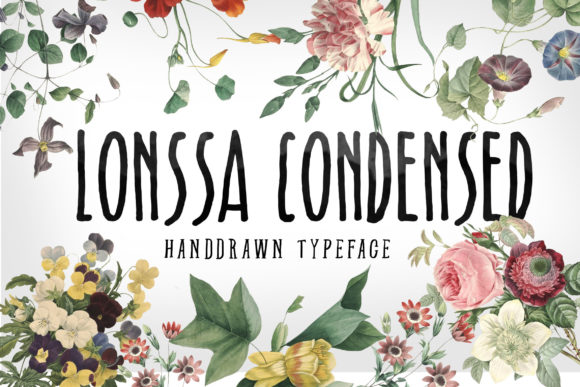
Lonssa Condensed for Modern Typography
Lonssa Condensed is a handwritten font that brings an authentic, personal touch to digital design. As a marketing specialist who regularly creates visuals for social media and brand campaigns, I've found that the right font can make or break audience engagement. This script font offers a unique blend of simplicity and charm, making it ideal for a wide range of creative projects.
The visual style of Lonssa Condensed is clean and approachable, with subtle imperfections that mimic real handwriting. It carries a warm, friendly mood that's perfect for content that aims to connect on a personal level. Whether you're designing a promotional graphic or a branded template, this font adds a human element that stands out in a sea of generic typefaces.
Creating Impactful Social Media Graphics
For Instagram posts, Pinterest pins, and YouTube thumbnails, the key is to grab attention quickly. Lonssa Condensed excels in this area due to its legibility and distinct character. When used for headlines or callouts, it helps draw the eye and encourages users to stop scrolling.
Consider using Lonssa Condensed for a sale announcement. Pair it with a clean sans serif font for the supporting text, and you'll have a visually balanced graphic that communicates your message clearly. The contrast between the two fonts enhances readability while keeping the design cohesive.
Inspiration quotes are another great use case. A simple quote in Lonssa Condensed can feel more genuine and relatable, especially when paired with a minimalist background. This makes it ideal for content creators looking to build a loyal following through consistent, emotionally resonant visuals.
Enhancing Brand Recognition and Visual Consistency
Consistency across digital platforms is crucial for building brand recognition. Lonssa Condensed can be a valuable asset in maintaining a unified visual identity. Its unique personality ensures that your brand stands out while still feeling familiar to your audience.
When creating a webinar banner or a content series header, using Lonssa Condensed as the main title font reinforces your brand’s voice. The font’s authenticity aligns well with brands that want to appear approachable and trustworthy. It also works well in email headers, where it can help differentiate your messages from the clutter of incoming emails.
For online shop promotions, Lonssa Condensed can add a sense of exclusivity and handcrafted appeal. This is particularly effective for niche markets or boutique brands that want to emphasize quality and craftsmanship in their marketing materials.
Optimizing Readability Across Devices
Readability is essential, especially on mobile screens and small previews. Lonssa Condensed is designed with clarity in mind, ensuring that even short text remains legible at various sizes. This makes it a solid choice for headlines, callouts, and decorative accents in fast-scrolling feeds.
When using this font for thumbnails or social media covers, keep the text concise and avoid overcrowding the design. A single line of impactful text in Lonssa Condensed can be more effective than multiple lines of dense information.
Practical Font Pairing Strategies
Font pairing is an important consideration when using a display font like Lonssa Condensed. To maintain balance, pair it with a clean sans serif font for captions or body text. This combination ensures that your design remains readable while still standing out visually.
For a more editorial look, consider combining Lonssa Condensed with a serif font. This pairing works well for blog headers, magazine-style layouts, or packaging design that requires a classic yet modern aesthetic.
Experimentation is key. Test different combinations to see what best suits your brand’s tone and the specific platform you're targeting. Always ensure that the overall design remains cohesive and aligned with your brand identity.
Whether you're working on a seasonal promotion, product launch, or personal branding project, Lonssa Condensed offers a versatile and authentic solution. Its ability to enhance readability, influence perception, and support brand consistency makes it a must-have in any designer’s toolkit.